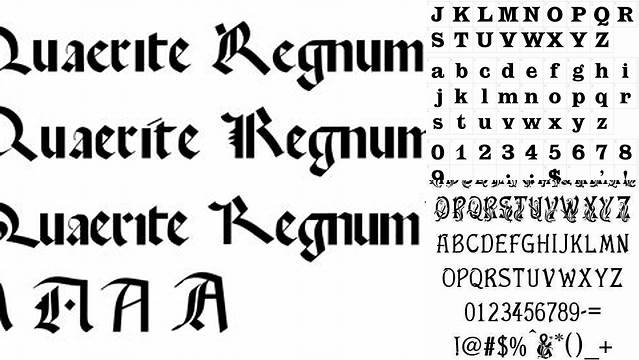
Latin Fonts: Free Downloads & Usage Tips
Are you on the hunt for latin fonts free download? Look no further! This comprehensive guide will walk you through everything you need to know about finding and using Latin fonts without breaking the bank. Whether you're a seasoned designer or just starting out, having access to a diverse collection of fonts is crucial for creating visually appealing and effective designs. Latin fonts, with their rich history and classic appeal, are particularly versatile and can add a touch of elegance to any project. In this guide, we'll explore what Latin fonts are, where you can find them for free, how to choose the right font for your project, and some tips and tricks for using them effectively. So, let's dive in and discover the world of free Latin fonts!
What are Latin Fonts?
Latin fonts, at their core, are typefaces designed to support the Latin alphabet. This alphabet forms the basis for many languages, including English, Spanish, French, German, and, of course, Latin itself. The history of Latin fonts is deeply intertwined with the development of writing and printing in the Western world. From the early Roman inscriptions to the elegant typefaces of the Renaissance, Latin fonts have evolved significantly over the centuries. Understanding this history can give you a deeper appreciation for the nuances and variations within Latin font styles.
A Brief History of Latin Fonts
The story begins with the Romans, who developed the earliest forms of the Latin alphabet and the monumental capitals that we often see on ancient buildings. These letterforms were characterized by their strong, geometric shapes and were primarily used for inscriptions. As writing evolved, so did the fonts. During the medieval period, various scripts emerged, including the Carolingian minuscule, which is considered a precursor to many modern lowercase letters. The invention of the printing press in the 15th century brought about a revolution in typography. Printers like Johannes Gutenberg sought to replicate the handwritten forms of the time, leading to the development of early serif fonts. These fonts, with their small decorative strokes (serifs) at the ends of the letterforms, were designed to mimic the look of calligraphy and made text more readable. Over the centuries, countless variations and styles have emerged, ranging from classic serifs like Times New Roman and Garamond to modern sans-serifs like Helvetica and Arial. Each style carries its own distinct personality and is suited for different purposes. The history of Latin fonts is a fascinating journey through human communication, art, and technology.
Key Characteristics of Latin Fonts
Latin fonts encompass a vast range of styles, but they share some common characteristics. The most basic distinction is between serif and sans-serif fonts. Serif fonts, as mentioned earlier, have small strokes or serifs at the ends of their letterforms. These serifs are thought to improve readability by guiding the eye across the page. Serif fonts are often associated with tradition, authority, and formality. They are commonly used in books, newspapers, and other print materials where readability is paramount. Sans-serif fonts, on the other hand, lack these serifs. They have a cleaner, more modern appearance and are often used in digital media, such as websites and apps. Sans-serif fonts are perceived as more contemporary and minimalist. Within these two broad categories, there are countless sub-styles, including slab serifs (with thick, block-like serifs), script fonts (which mimic handwriting), and display fonts (designed for headlines and other large-format uses). Understanding these characteristics is essential for choosing the right font for your project. Consider the message you want to convey, the medium you're using, and the overall aesthetic you're aiming for. A formal document might benefit from a classic serif font, while a website might look sleek and modern with a sans-serif font. The key is to select a font that aligns with your goals and enhances the overall design.
DaFont is a popular website offering a vast collection of fonts, including many Latin fonts that are available for free. While DaFont is a great resource, it's important to note that the licensing terms for fonts on DaFont can vary. Some fonts are free for personal use only, while others are free for commercial use. It's crucial to carefully review the licensing information for each font before using it in your project. DaFont's interface is straightforward, allowing you to browse fonts by category, popularity, and recent additions. The website's sheer size can be both a blessing and a curse. On the one hand, you'll find an incredible variety of fonts, covering almost every style imaginable. On the other hand, the quality of fonts on DaFont can vary widely. Some fonts are professionally designed and meticulously crafted, while others are amateurish and poorly executed. This means you'll need to be discerning in your selection process. When browsing DaFont, pay close attention to user ratings and comments. These can provide valuable insights into the quality and usability of a font. Also, be sure to download the font files and test them out in your design software before committing to using them. Despite the potential for variability in quality, DaFont remains a valuable resource for designers looking for latin fonts free download. Its extensive collection and user-friendly interface make it a worthwhile place to search for the perfect font for your project. Just remember to always check the licensing terms and exercise caution in your font selection.
How to Choose the Right Latin Font
Choosing the right Latin font for your project is crucial for effective communication and visual appeal. The font you select can significantly impact the message you're trying to convey and the overall tone of your design. With so many options available, it can be overwhelming to know where to start. However, by considering a few key factors, you can narrow down your choices and find the perfect font for your needs. The first factor to consider is the purpose of your project. Are you designing a website, a brochure, a logo, or something else? Different types of projects call for different types of fonts. A website, for example, might benefit from a clean, readable sans-serif font, while a formal invitation might look elegant with a classic serif font. The second factor to consider is your target audience. Who are you trying to reach with your design? Different audiences may respond differently to different fonts. A young, tech-savvy audience might appreciate a modern, minimalist font, while an older, more traditional audience might prefer a more classic typeface. The third factor to consider is the overall tone and style you want to convey. Do you want your design to feel formal or informal, serious or playful, modern or vintage? The font you choose should align with the desired tone and style. A bold, impactful font might be suitable for a headline, while a more subtle font might be better for body text. Finally, don't be afraid to experiment and try out different fonts. Typography is an art as well as a science, and there's no one-size-fits-all answer. By understanding these factors and exploring different options, you can find the Latin font that best suits your project and helps you achieve your design goals.
Consider Your Project's Purpose
When selecting a Latin font, the first step is to carefully consider the purpose of your project. The type of project will significantly influence the font choices that are most appropriate. For instance, a website designed for a tech company might benefit from a sleek, modern sans-serif font that conveys innovation and sophistication. In contrast, a website for a historical museum might be better suited to a classic serif font that evokes tradition and authority. Similarly, the font choices for a print project, such as a brochure or a poster, may differ from those for a digital project. Print projects often require fonts with excellent readability at smaller sizes, while digital projects may prioritize fonts that render well on screens. If you're designing a logo, the font you choose will be a critical element of your brand identity. The logo font should be unique, memorable, and reflective of your brand's personality. A playful, whimsical font might be appropriate for a children's brand, while a bold, authoritative font might be better for a corporate brand. When considering your project's purpose, think about the key messages you want to convey and the emotions you want to evoke. The font you choose should support these goals and enhance the overall impact of your design. Take the time to explore different font styles and experiment with different combinations. By carefully aligning your font choices with your project's purpose, you can create designs that are both visually appealing and highly effective. Remember, the font is not just a decorative element; it's a crucial tool for communication.
Think About Readability
Readability is a critical factor to consider when choosing a Latin font, especially for projects that involve a lot of text. A font that looks beautiful but is difficult to read will ultimately detract from your message. Readability refers to how easily the eye can distinguish individual letters and words. Several factors can influence a font's readability, including its x-height, letter spacing, and contrast. X-height is the height of the lowercase letters in a font, relative to the uppercase letters. Fonts with a higher x-height tend to be more readable, as the lowercase letters are more prominent and easier to recognize. Letter spacing, also known as tracking, is the amount of space between letters in a word. Too little spacing can make words look cramped and difficult to read, while too much spacing can make the letters seem disconnected. The optimal letter spacing will depend on the font itself, as well as the size and weight of the text. Contrast refers to the difference in thickness between the strokes of a letter. Fonts with high contrast, such as Bodoni, can look elegant and sophisticated, but they can also be challenging to read in large blocks of text. Fonts with lower contrast, such as Gill Sans, tend to be more readable for extended reading. When evaluating a font's readability, consider the context in which it will be used. A font that is readable on a computer screen may not be as readable in print, and vice versa. Also, think about the size of the text and the amount of text on the page or screen. For large blocks of text, such as in a book or a website article, prioritize fonts that are clear and easy on the eyes. For shorter pieces of text, such as headlines or captions, you may have more leeway to experiment with more decorative fonts. Ultimately, the best way to assess a font's readability is to test it out. Try using the font in a sample of your text and see how it looks and feels. Get feedback from others on its readability. By paying attention to readability, you can ensure that your message is communicated effectively and that your audience has a positive reading experience.
Match the Font to Your Brand
Matching the font to your brand is paramount in creating a cohesive and recognizable visual identity. Your brand's font choices play a significant role in shaping how your audience perceives your company or organization. A well-chosen font can reinforce your brand's personality, values, and overall message. Conversely, a poorly chosen font can undermine your brand and create a disconnect with your audience. When selecting a font for your brand, start by considering your brand's identity. What are the key attributes you want to convey? Are you a modern, innovative company, or a traditional, reliable one? Are you playful and creative, or serious and professional? Your font choices should reflect these attributes. For example, a tech startup might opt for a clean, minimalist sans-serif font to convey a sense of modernity and simplicity. A law firm, on the other hand, might choose a classic serif font to project trustworthiness and authority. Consider the visual style of your brand. Do you have a logo, color palette, and other visual elements? Your font choices should complement these elements and create a harmonious overall look. A bold, geometric font might pair well with a modern logo, while a script font might be a good fit for a more elegant and traditional brand. Think about the different contexts in which your brand's font will be used. Will it be used primarily online, in print, or both? Some fonts render better on screens, while others are more legible in print. Make sure your font choices work well across all platforms. It's often a good idea to select a primary font for your brand, which will be used for headlines, logos, and other key elements. You may also want to choose a secondary font for body text and other supporting materials. The two fonts should work well together and create a consistent visual hierarchy. Finally, don't be afraid to experiment and try out different fonts. Typography is a creative process, and there's no one-size-fits-all solution. By carefully matching your font choices to your brand, you can create a visual identity that is both memorable and effective. Remember, your font is not just a design element; it's a powerful tool for communication.
Tips and Tricks for Using Latin Fonts Effectively
Using Latin fonts effectively involves more than just choosing the right font. It also requires careful attention to typography principles and design best practices. Here are some tips and tricks to help you make the most of your Latin fonts and create visually stunning designs:
Pair Fonts Wisely
Pairing fonts wisely is a crucial aspect of effective typography. The right font pairing can elevate your design, create visual interest, and enhance readability. The wrong pairing, on the other hand, can lead to a cluttered, confusing, and unprofessional look. When pairing fonts, the goal is to create a harmonious combination that is both visually appealing and easy to read. A common approach is to pair a serif font with a sans-serif font. This creates contrast and visual interest while maintaining readability. For example, you might pair a classic serif font like Times New Roman with a clean sans-serif font like Helvetica. Another strategy is to pair fonts from the same font family. Many font families include a range of weights and styles, such as regular, bold, italic, and condensed. By using different weights and styles from the same family, you can create a cohesive and visually appealing design. For instance, you might use a bold weight for headlines and a regular weight for body text. When pairing fonts, pay attention to the overall tone and style of your design. The fonts you choose should complement each other and create a consistent visual message. Avoid pairing fonts that are too similar, as this can create a monotonous look. Also, avoid pairing fonts that are too different, as this can create a jarring and chaotic effect. Consider the context in which the fonts will be used. For example, a website might benefit from a more modern and minimalist font pairing, while a print project might call for a more traditional and elegant combination. Experiment with different font pairings and see what works best for your project. There are many online resources that can help you find font pairings, but ultimately the best way to learn is to practice and develop your eye. By pairing fonts wisely, you can create designs that are both visually stunning and highly effective. Remember, typography is an art as well as a science, and the right font pairing can make all the difference.
Use Hierarchy to Guide the Reader
Using hierarchy to guide the reader is a fundamental principle of effective typography. Visual hierarchy refers to the arrangement of elements in a design to indicate their relative importance. By establishing a clear visual hierarchy, you can guide the reader's eye through the content and ensure that they grasp the key messages. Fonts play a crucial role in creating visual hierarchy. Different font sizes, weights, and styles can be used to emphasize certain elements and de-emphasize others. For example, headlines are typically set in a larger font size and a bolder weight than body text. This makes the headlines stand out and allows the reader to quickly scan the content. Subheadings can be set in a slightly smaller font size and a less bold weight than headlines, but still larger and bolder than body text. This creates a clear hierarchy and helps the reader to understand the structure of the content. Body text should be set in a readable font size and weight. Avoid using too many different fonts or font styles, as this can create a cluttered and confusing look. Stick to a maximum of two or three fonts per design, and use different weights and styles within those fonts to create hierarchy. In addition to font size and weight, other typographic elements can be used to create hierarchy. These include letter spacing, line height, and text alignment. For example, increasing the letter spacing in a headline can make it stand out, while adjusting the line height in body text can improve readability. When creating visual hierarchy, consider the purpose of your design and the message you want to convey. The most important elements should be the most visually prominent, while less important elements should be more subtle. Experiment with different typographic techniques and see what works best for your project. By using hierarchy to guide the reader, you can create designs that are both visually appealing and highly effective. Remember, typography is a powerful tool for communication.
Don't Overuse Fonts
Don't overuse fonts is a critical piece of advice for any designer. While it can be tempting to experiment with a variety of fonts in a single design, using too many fonts can quickly lead to a cluttered, confusing, and unprofessional look. A general rule of thumb is to stick to a maximum of two or three fonts per design. This allows you to create visual interest and hierarchy without overwhelming the reader. When selecting fonts for your design, choose fonts that complement each other and create a cohesive overall look. Avoid using fonts that are too similar, as this can create a monotonous effect. Also, avoid using fonts that are too different, as this can create a jarring and chaotic effect. Consider the purpose of your design and the message you want to convey. The fonts you choose should align with the overall tone and style of your design. For example, a formal design might benefit from a classic serif font, while a modern design might be better suited to a sans-serif font. Use different font sizes, weights, and styles to create visual hierarchy. This helps to guide the reader's eye through the content and ensure that they grasp the key messages. For example, headlines are typically set in a larger font size and a bolder weight than body text. Body text should be set in a readable font size and weight. Avoid using overly decorative or script fonts for body text, as these can be difficult to read in large blocks of text. These types of fonts are best reserved for headlines or other short pieces of text. Be consistent in your font choices throughout your design. This helps to create a unified and professional look. Use the same fonts for similar elements, such as headlines, subheadings, and body text. By following these guidelines, you can avoid overusing fonts and create designs that are both visually appealing and highly effective. Remember, typography is a powerful tool for communication, and the right font choices can make all the difference.
In conclusion, finding and using latin fonts free download is entirely achievable with the wealth of resources available online. From Google Fonts to Font Squirrel, the internet offers a plethora of options for designers of all levels. Remember, the key to effective typography lies not just in finding the right font, but also in using it wisely. Consider your project's purpose, think about readability, match the font to your brand, and follow the tips and tricks outlined in this guide. By mastering these principles, you can create designs that are visually appealing, communicate effectively, and leave a lasting impression. So, go ahead and explore the world of free Latin fonts – your next design masterpiece awaits!